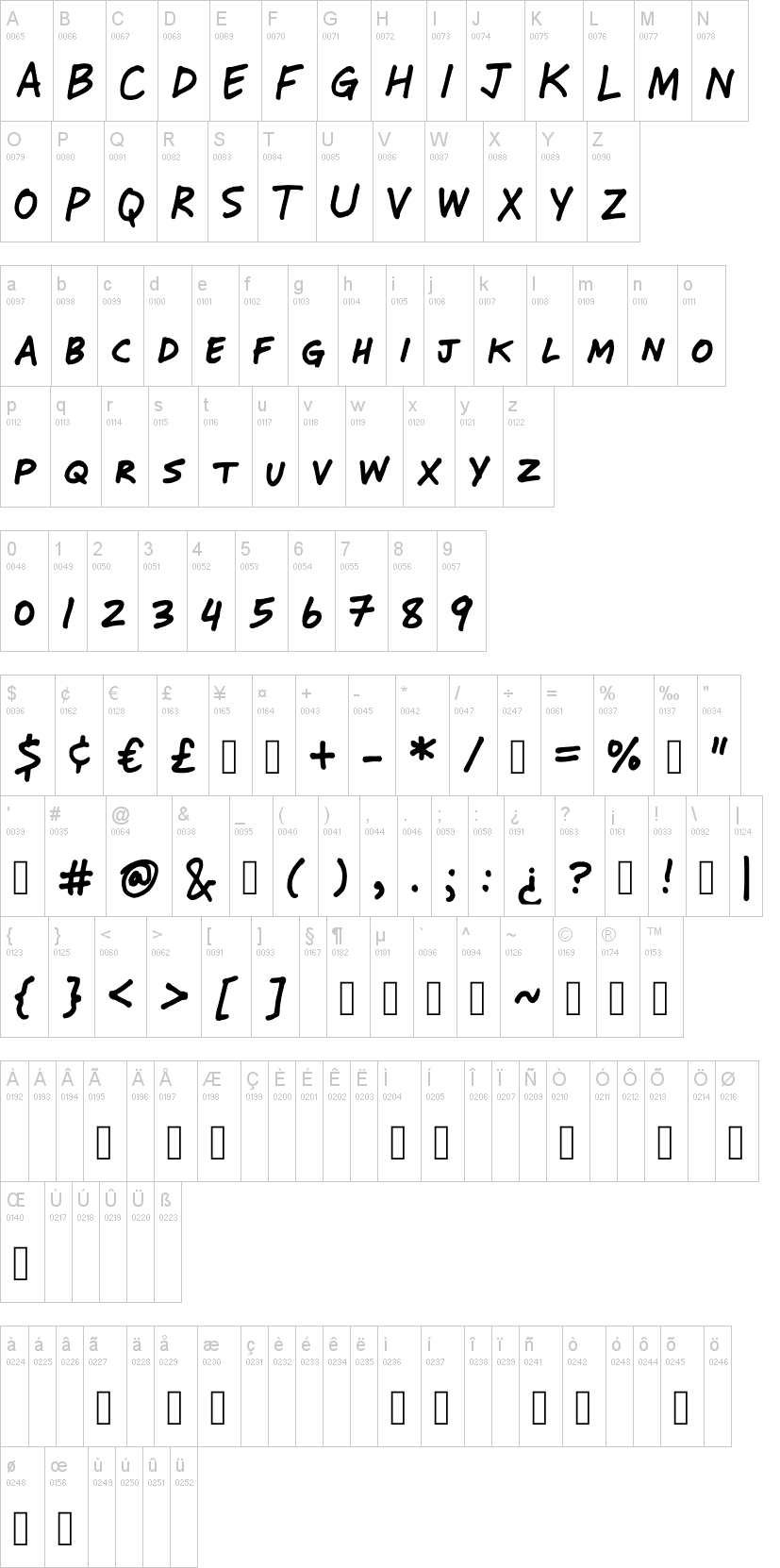
Note of the authorThis is my handwriting, I write in all caps all the time. Its a work in progress and as notice the things I don't like about this font, i'll update it. I currently have a light and heavy version of this, but it doesn't look quite how i'd prefer so i'm still working on it. Looks best if you use it with all caps or all lowercase. the size difference is merely to offer options within the font seeing as i don't write in lowercase, at all, ever.